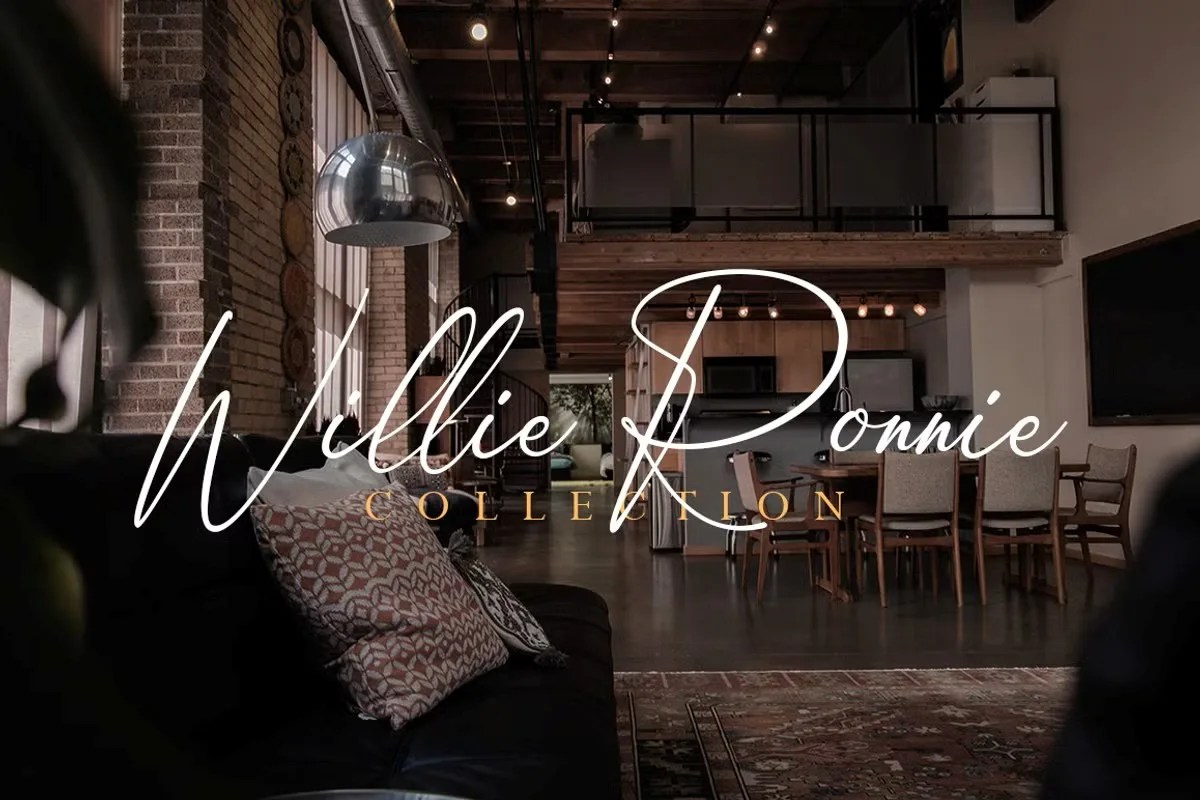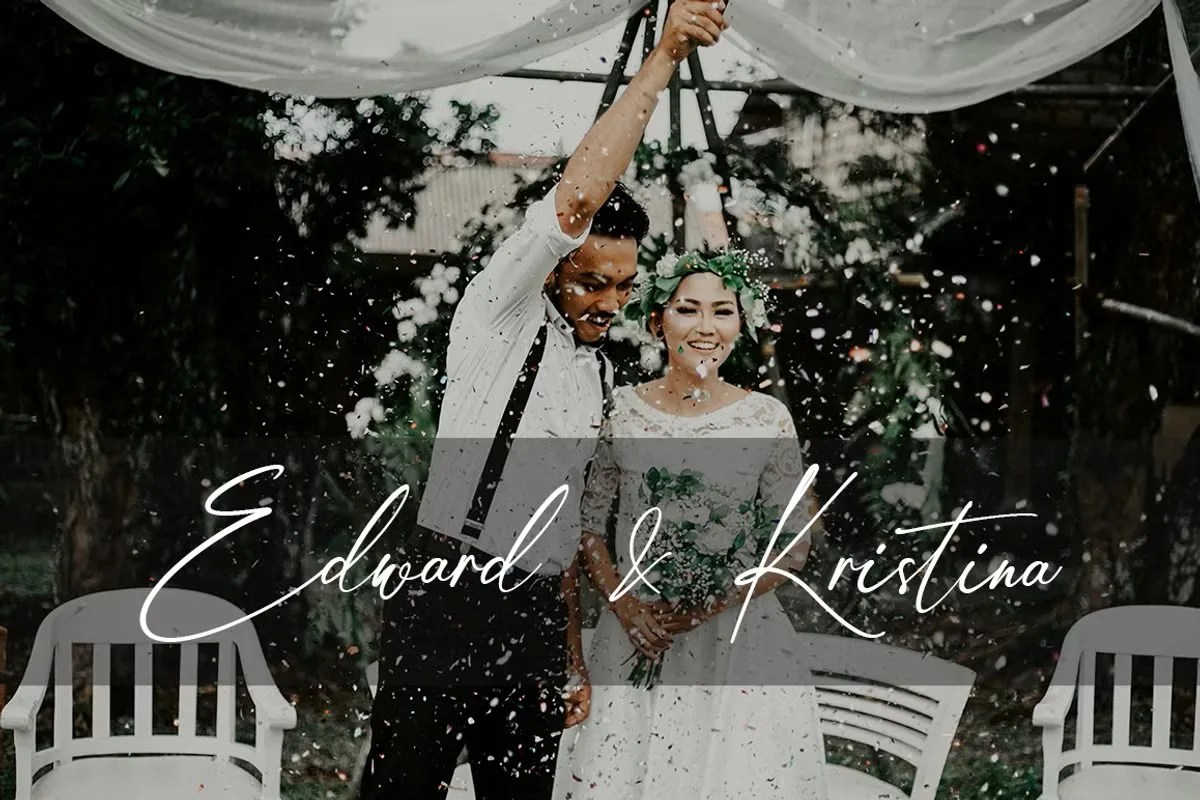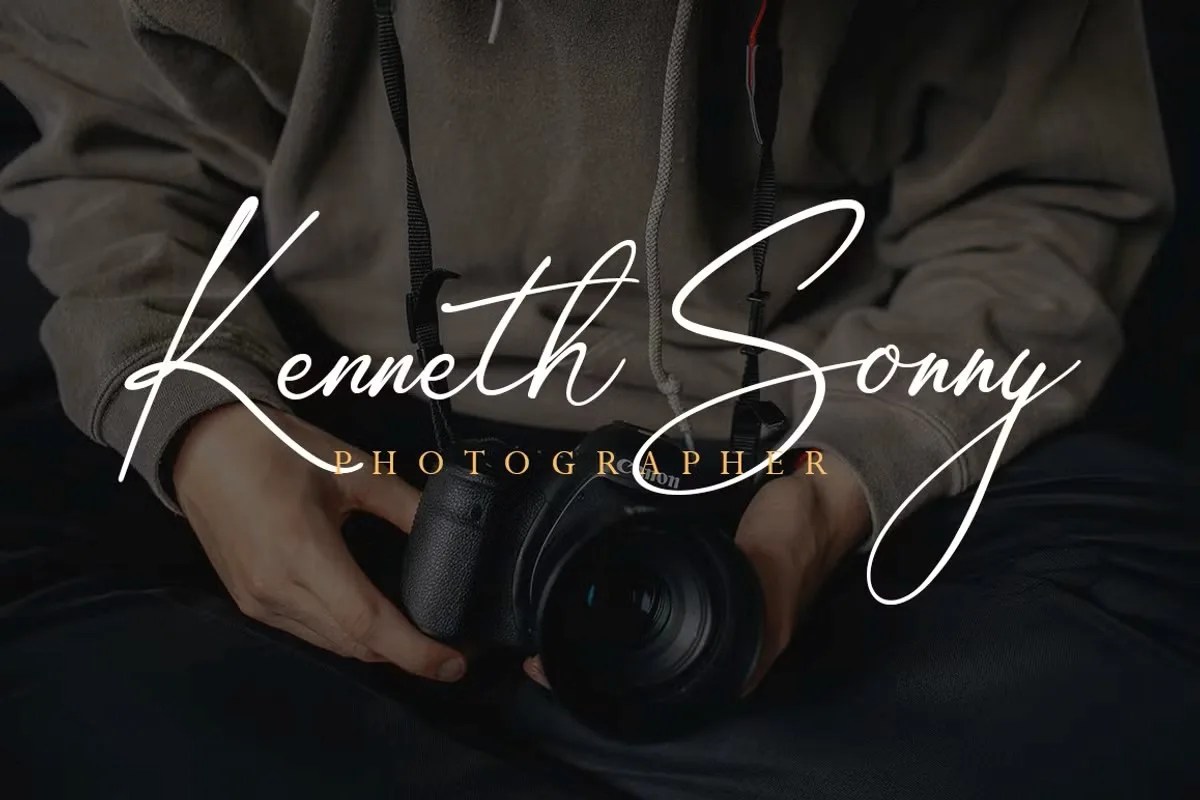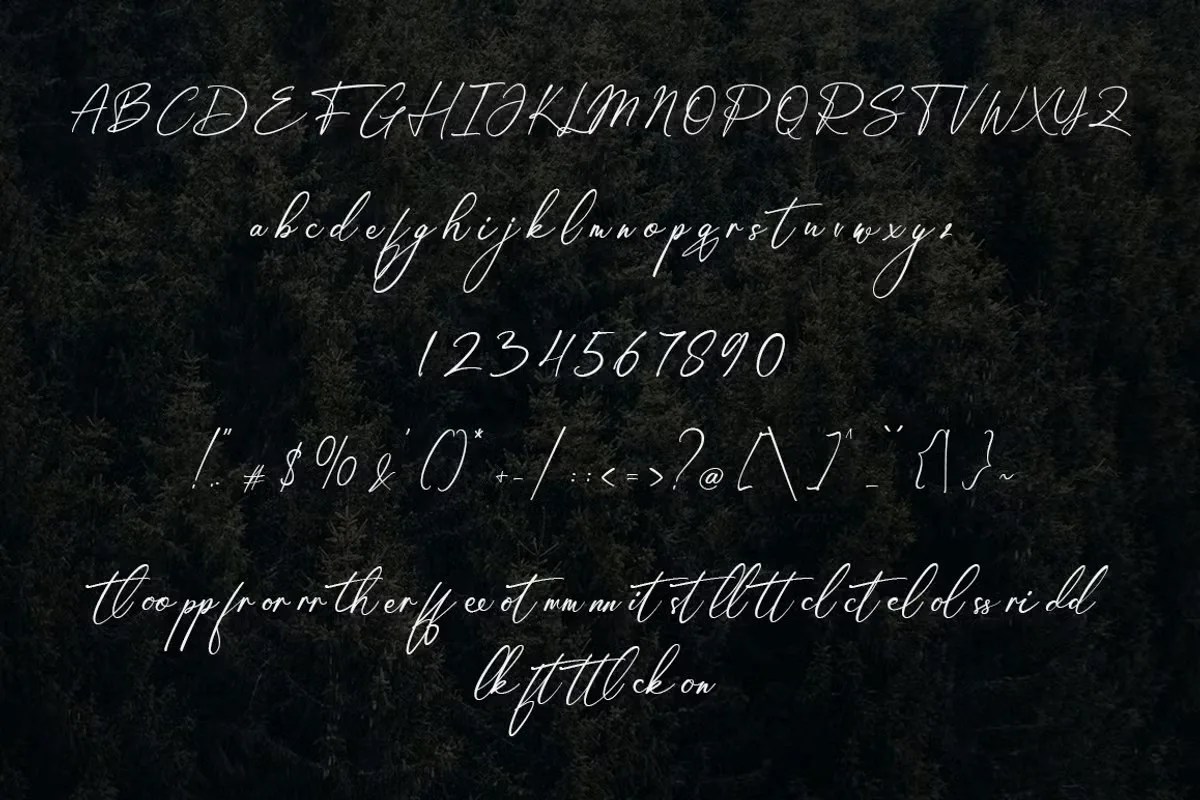
Discover Florissant by Mayofont, a beautiful and modern script font that flows with natural elegance. This typeface captures the grace of hand-drawn calligraphy in a clean, accessible format. Its name suggests a flourishing, floral character, which is reflected in every curve and swash. Florissant is not just a font; it is a tool for adding a touch of romance and bespoke artistry to your designs. It’s perfect for projects that need a personal and sophisticated feel.
Florissant is designed with careful attention to detail. For instance, its letters connect seamlessly with one another. As a result, this creates a truly authentic, handwritten look that is often hard to find. The font features a dynamic, dancing baseline that gives it energy and movement. Furthermore, many characters come with elegant swashes and alternate forms. This provides incredible creative flexibility for designers. Consequently, you can customize your text to create unique and stunning typographic compositions that feel personal and custom-made.
• Elegant and flowing script style
• Features stylistic alternates and swashes
• Perfect for invitations, logos, and romantic branding
• Creates an authentic, handwritten feel